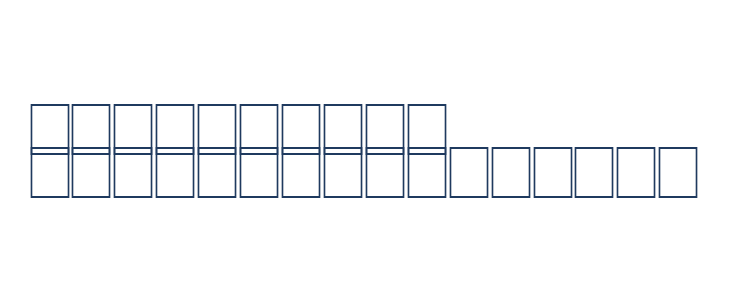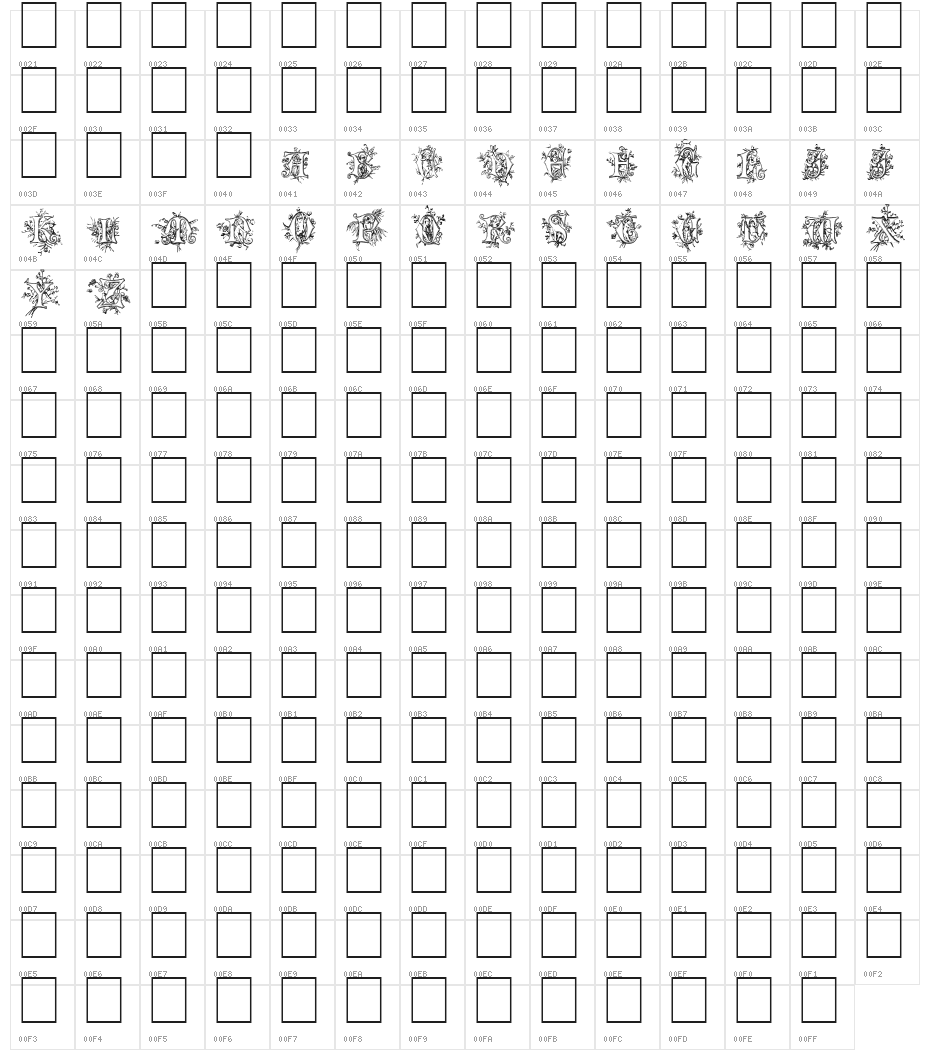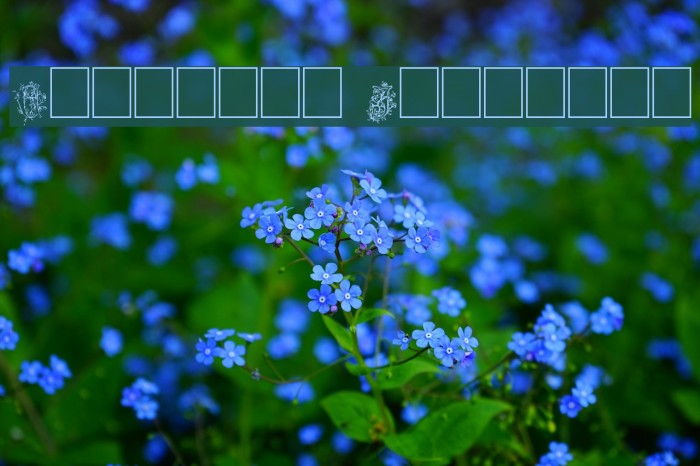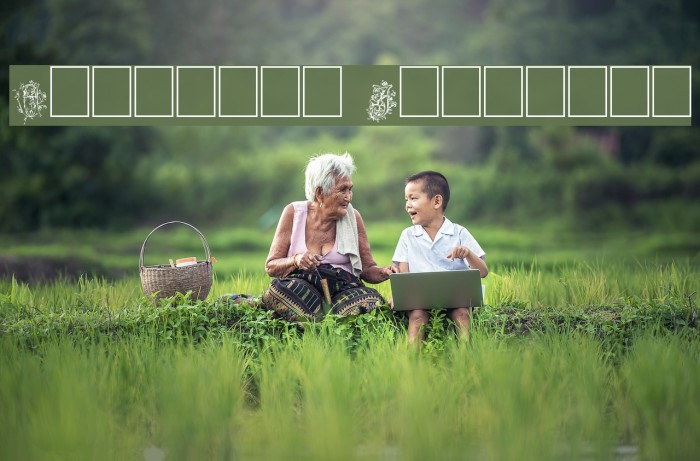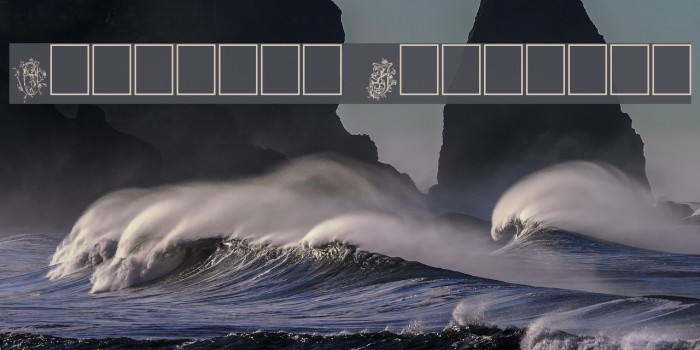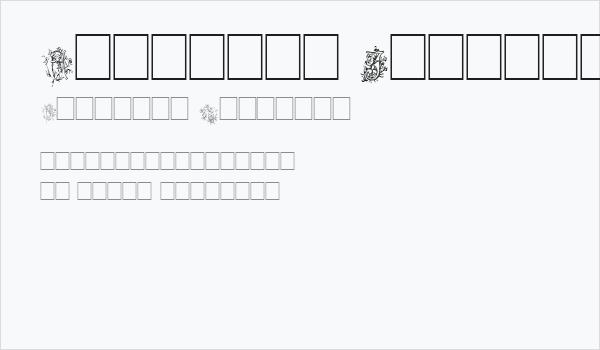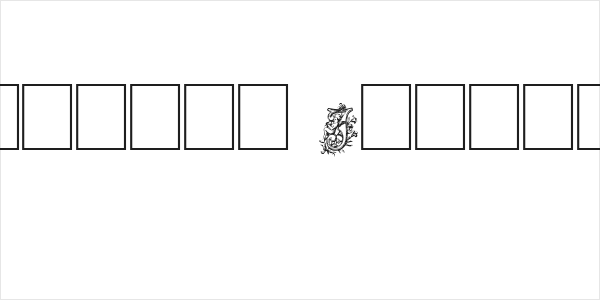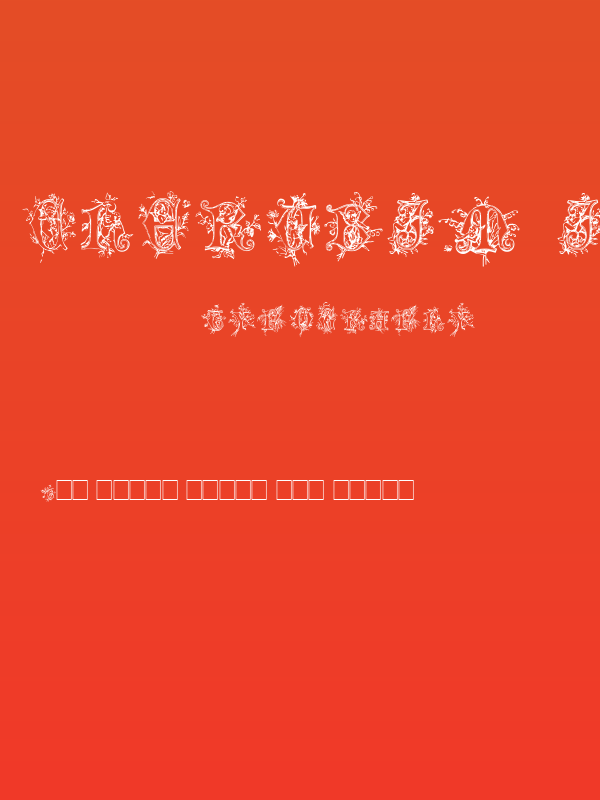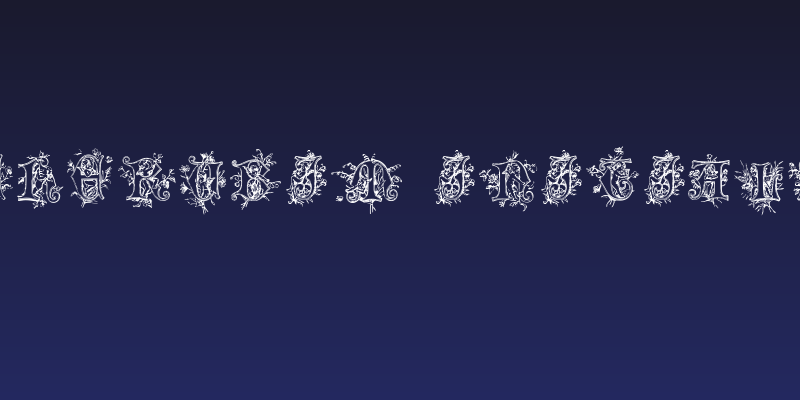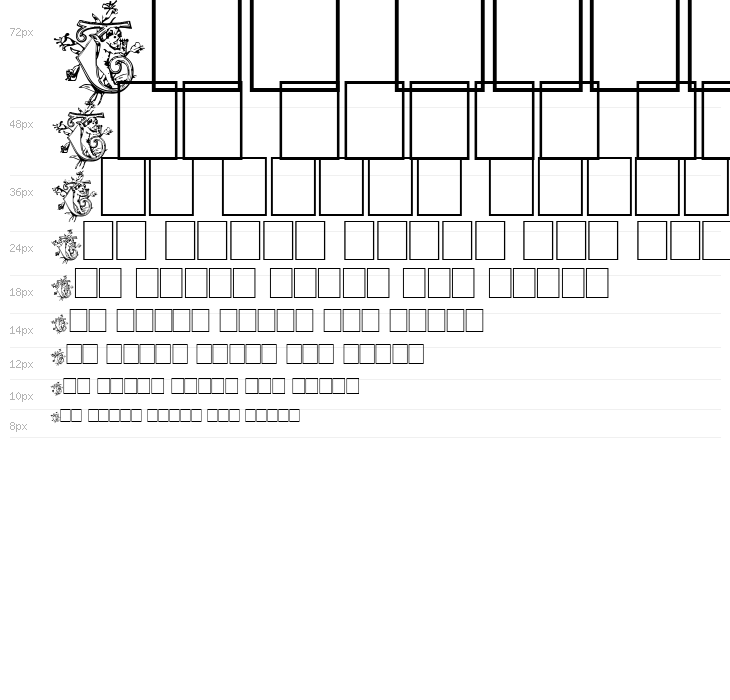
Cherubim Initials Font
Cherubim Initials Description
This font features highly decorative and ornate initials, each letter intricately designed with floral and vine motifs. The elaborate embellishments give it a regal and antique feel, reminiscent of illuminated manuscripts from the medieval period. The letters are uppercase only, with each character surrounded by detailed, swirling patterns that create a sense of elegance and sophistication. The artistry involved in each letter makes it suitable for projects that require a touch of historical or classical charm.